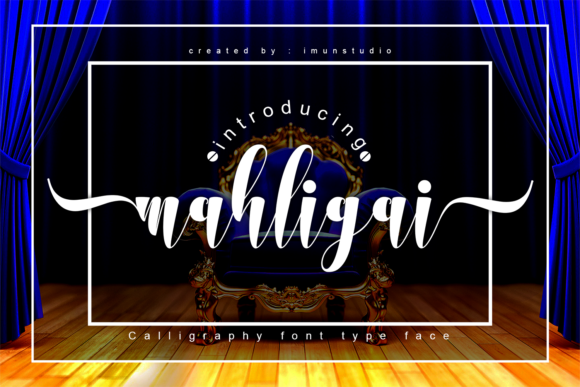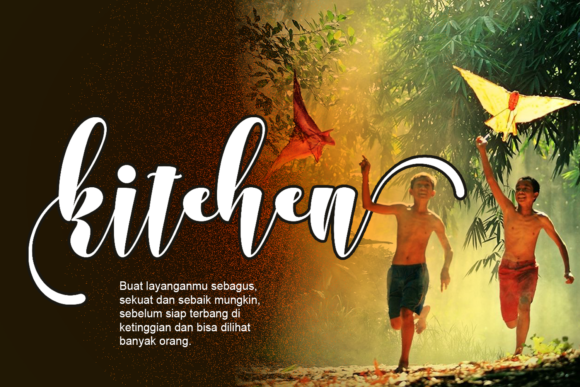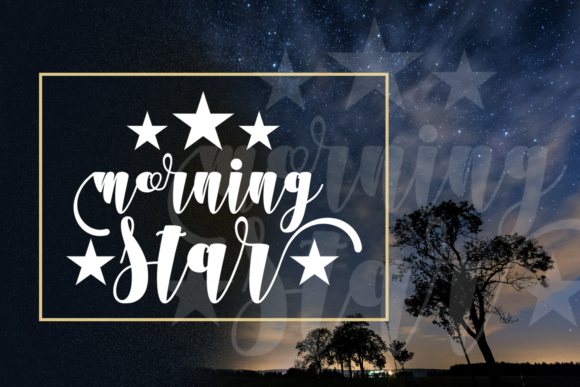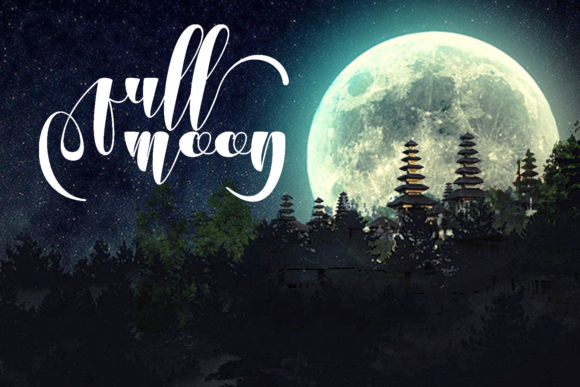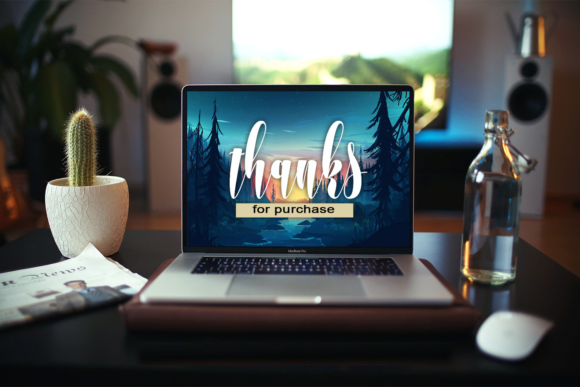
Mahligai Font
About Mahligai Font
The Mahligai is a modern calligraphy font. It has an amazing handwritten style with unique forms of calligraphy with a natural writing style.